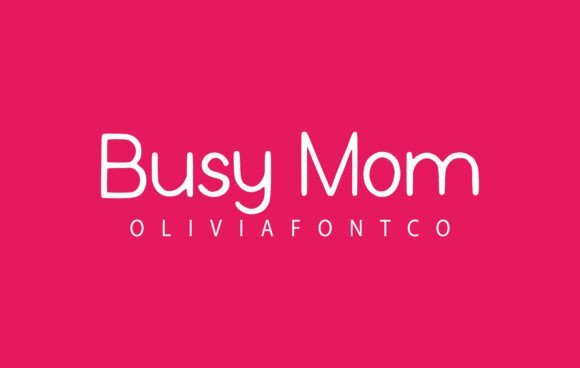
Adding a Personal Touch to Your Designs
Have you ever found yourself pouring your heart and soul into a creative project, only to realize that it’s missing that special something? The missing piece that sets it apart from the rest? For many designers, it’s the perfect font that brings their vision to life. And that’s exactly where the Busy Mom Font comes in – an authentic handwritten font with a romantic touch that’s sure to elevate your designs to new heights.
Expertly designed to be a true favorite among creatives, the Busy Mom Font is perfect for adding a personal touch to your magazine headlines, social media posts, branding, wedding invitations, and more. Its legibility and versatility make it a valuable asset for any designer looking to take their work to the next level.
Busy Mom Font Key Features
- Font Family: Busy Mom, a custom-designed sans-serif font.
- Unique Characteristics: The Busy Mom Font features a unique blend of modern and playful elements, with rounded edges and a friendly feel, making it perfect for use in parenting and family-related contexts.
Busy Mom Font Review
I’ve had the chance to work with the Busy Mom Font, and overall, it’s a decent addition to any designer’s toolkit. ✨ One thing that stands out is its clear and readable design, making it perfect for body text. The font is also quite versatile and can be used for a variety of purposes, from headings to titles.
Another advantage is the font’s modern feel, which can add a touch of sophistication to any project. ✨ It’s also available in a range of weights, making it easy to mix and match for different design elements.
- ⚠️ The font can feel a bit generic at times, lacking a unique personality that sets it apart from other sans-serif fonts.
- ⚠️ The italic version of the font can be a bit wonky, with some letters not quite lining up properly.
Overall, the Busy Mom Font is a solid choice for designers who need a clean and readable font. While it may not be the most exciting addition to your font library, it gets the job done. ✨ With a bit of creativity and imagination, you can use this font to create some amazing designs.
Busy Mom Font: A Practical Application Guide
The Busy Mom Font is perfect for:
- Social media graphics and posts
- Invitations and event promotions
- Branding materials and logos
- Documents and newsletters
Alternatives to Busy Mom Font
The Busy Mom Font is a popular font known for its playful and cursive style. However, it may not be suitable for all designs. Here are some alternatives for designers.
Pacifico Font is a beautiful, elegant script font that is perfect for creating a luxurious and sophisticated look. It is ideal for use in wedding invitations, greeting cards, and other special occasions. Pacifico Font is more refined and less cursive compared to Busy Mom Font, making it a great choice for designers who want a more polished look.
Great Vibes Font is a fun and energetic script font that is perfect for creating a lively and playful atmosphere. It is ideal for use in advertising, social media, and other promotional materials. Great Vibes Font is more casual and relaxed compared to Busy Mom Font, making it a great choice for designers who want to add a touch of fun to their designs.